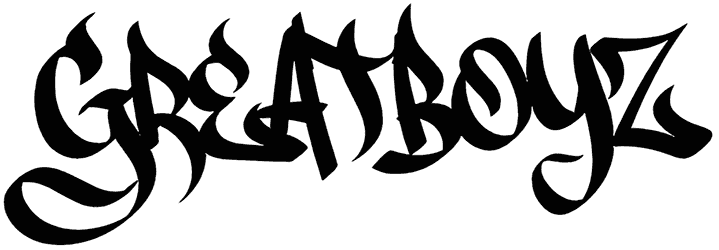
Greatboyz Font
Greatboyz looks like it was taken straight from the handwriting of a kidnapping victim. So if Halloween aesthetics are important to you and you don’t want to go for repetitive designs of spider webs and pumpkins, this scary font is for you.
Grateboyz, with its high quality, complexity, and spooky, is a graffiti font that can create an eerie atmosphere in your ads and posters. It doesn’t support small letters, and the illegibility of the letters has greatly contributed to its mysteriousness.